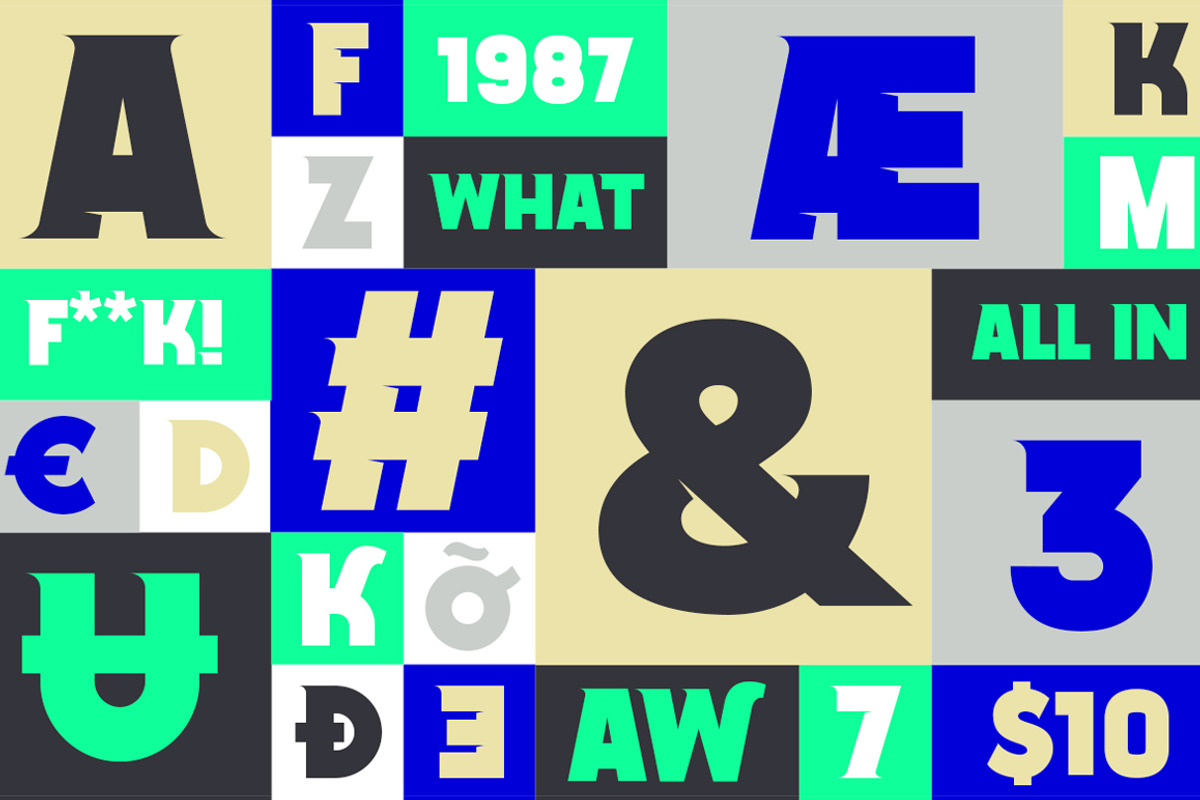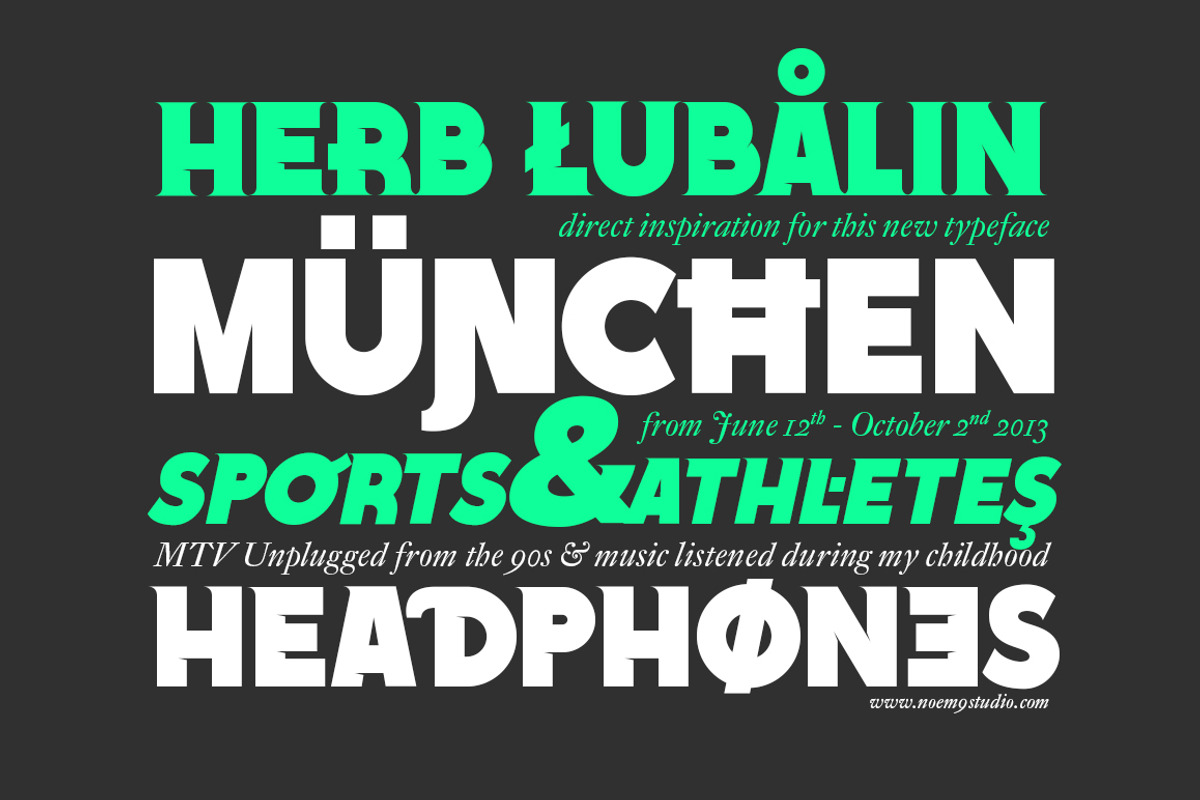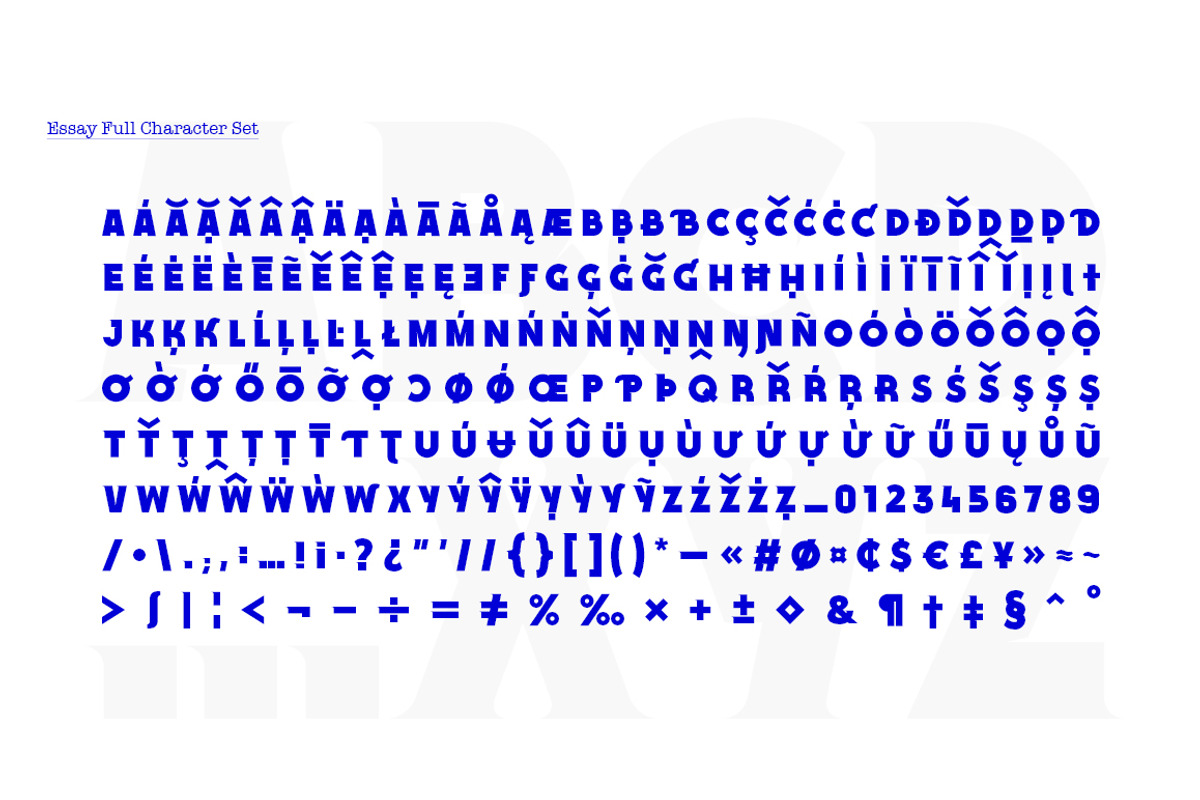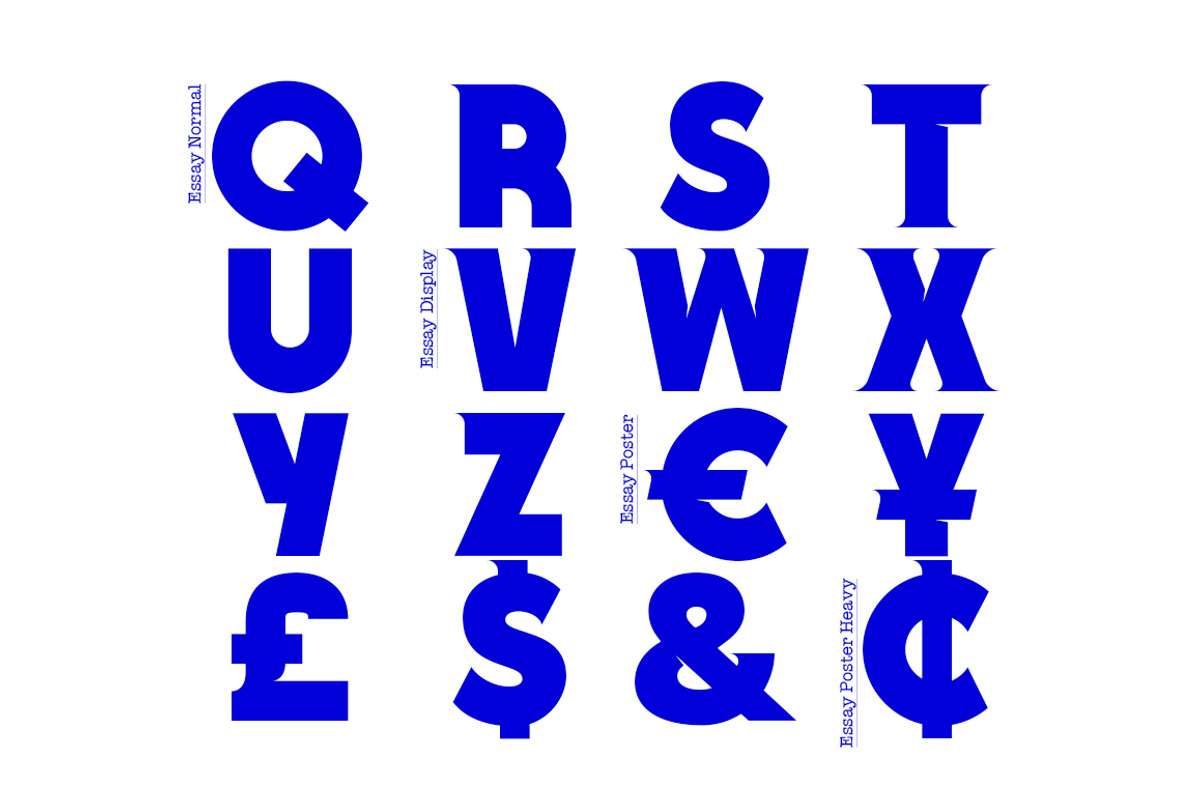
Essay Font Family
Essay Font Family by Noem9 Studio is a font selected for branding, posters, packaging, typography.
- × More than 250 Glyphs × Full Accented Character Set × Numbers + Punctuation Marks × International Characters × 8 Different Styles (Normal,
- Essay Normal
- Essay Oblique
- Essay Poster Heavy
- Essay Poster Heavy Oblique
- Essay Display
- Essay Poster
- Essay Display Oblique
- Essay Poster Oblique
Essay Font Family by Noem9 Studio fits naturally into Branding, posters, packaging, typography.